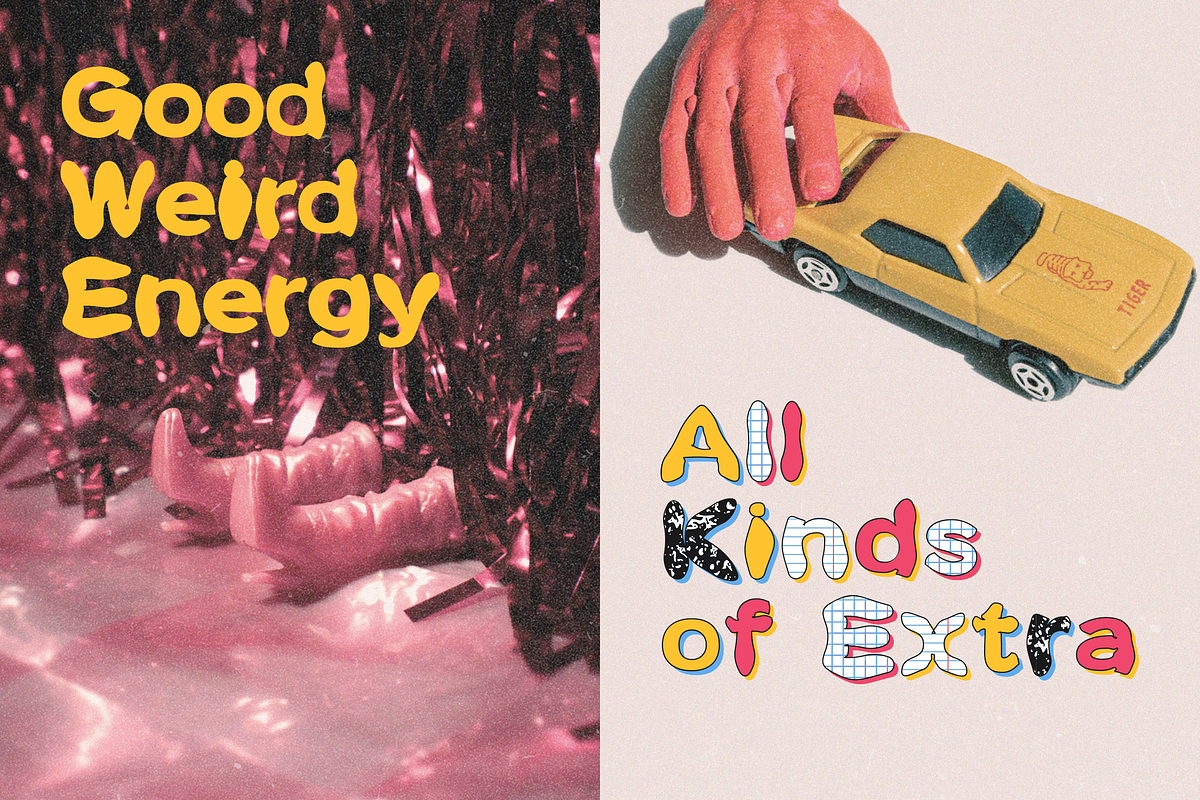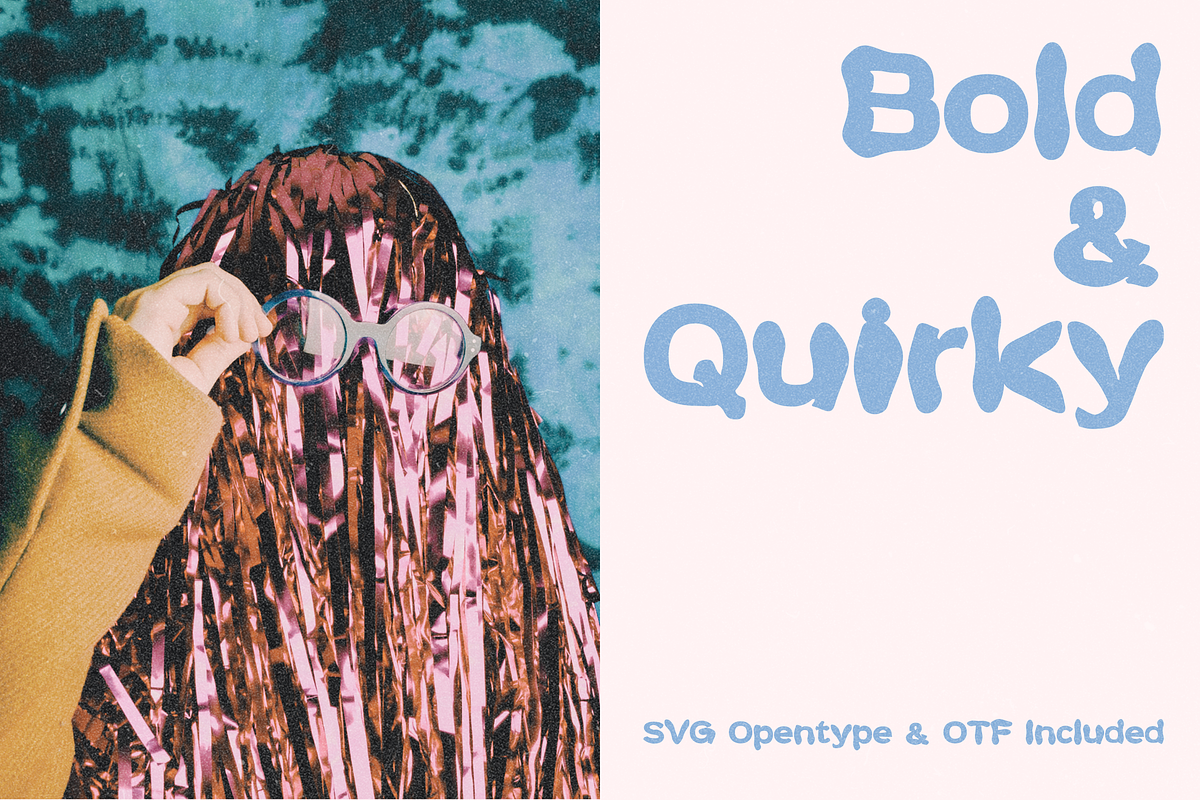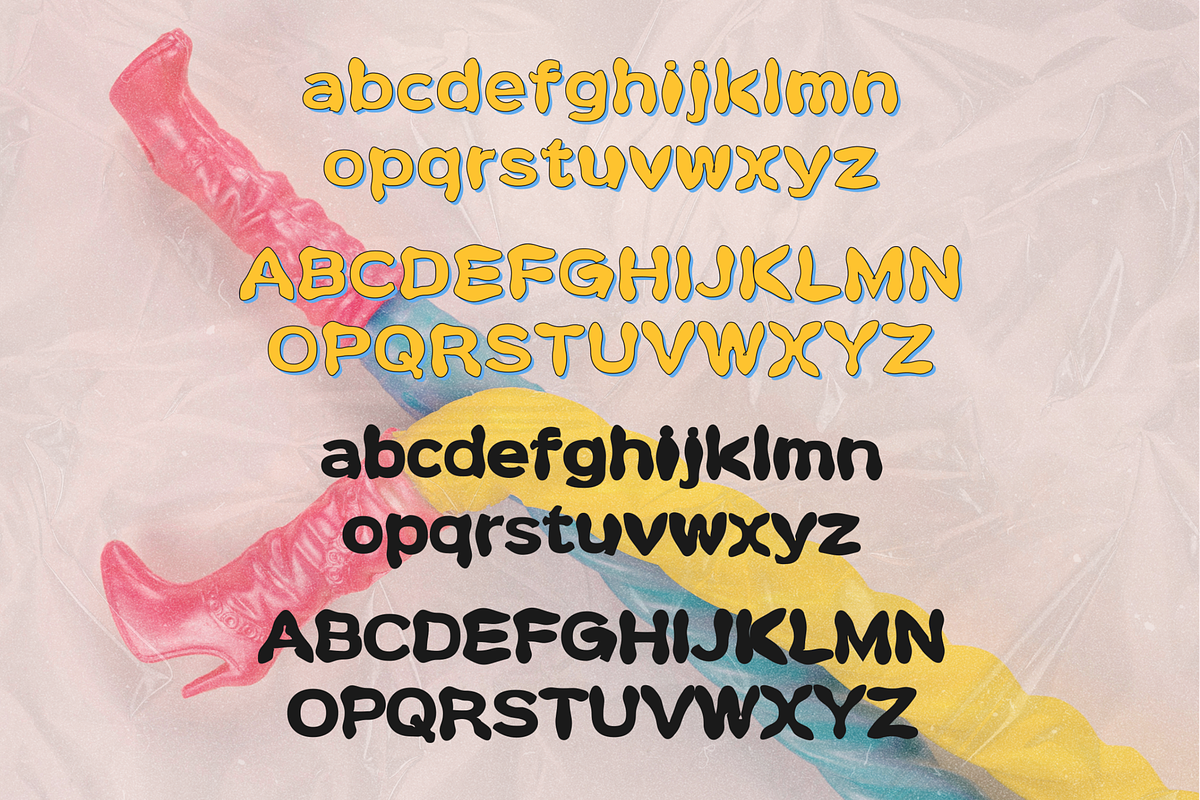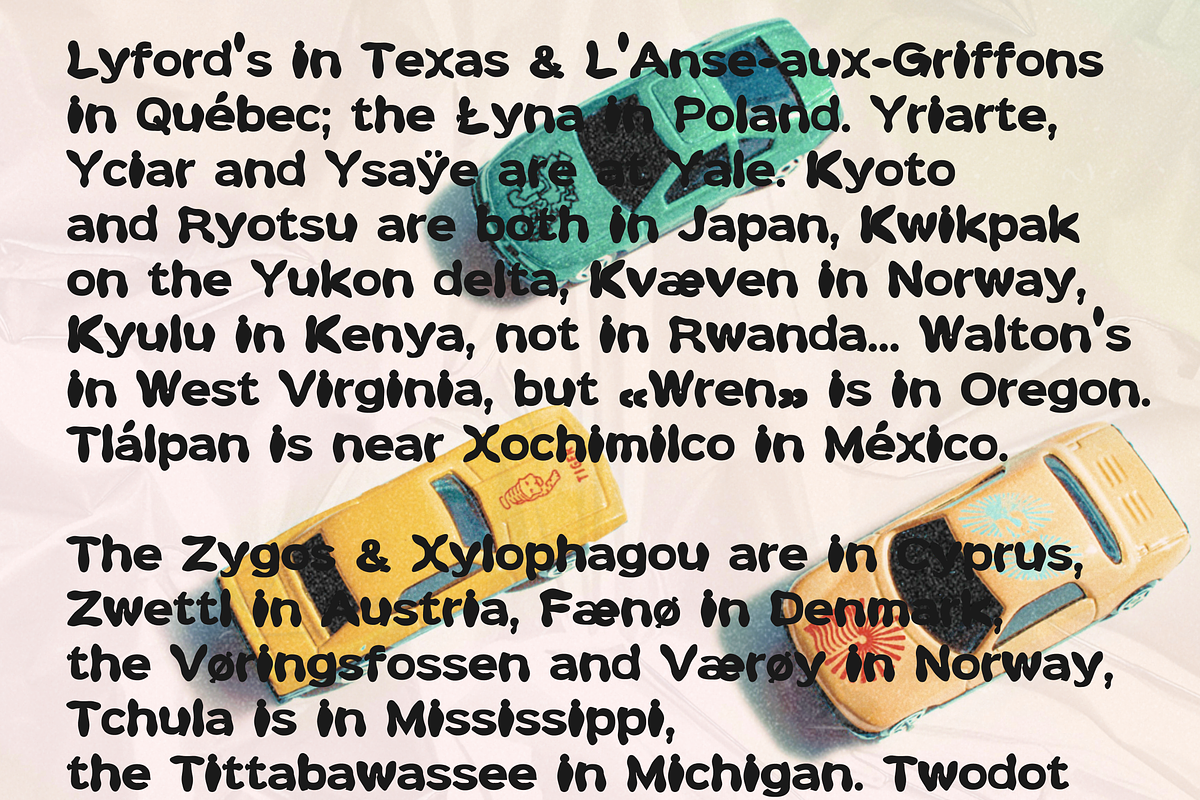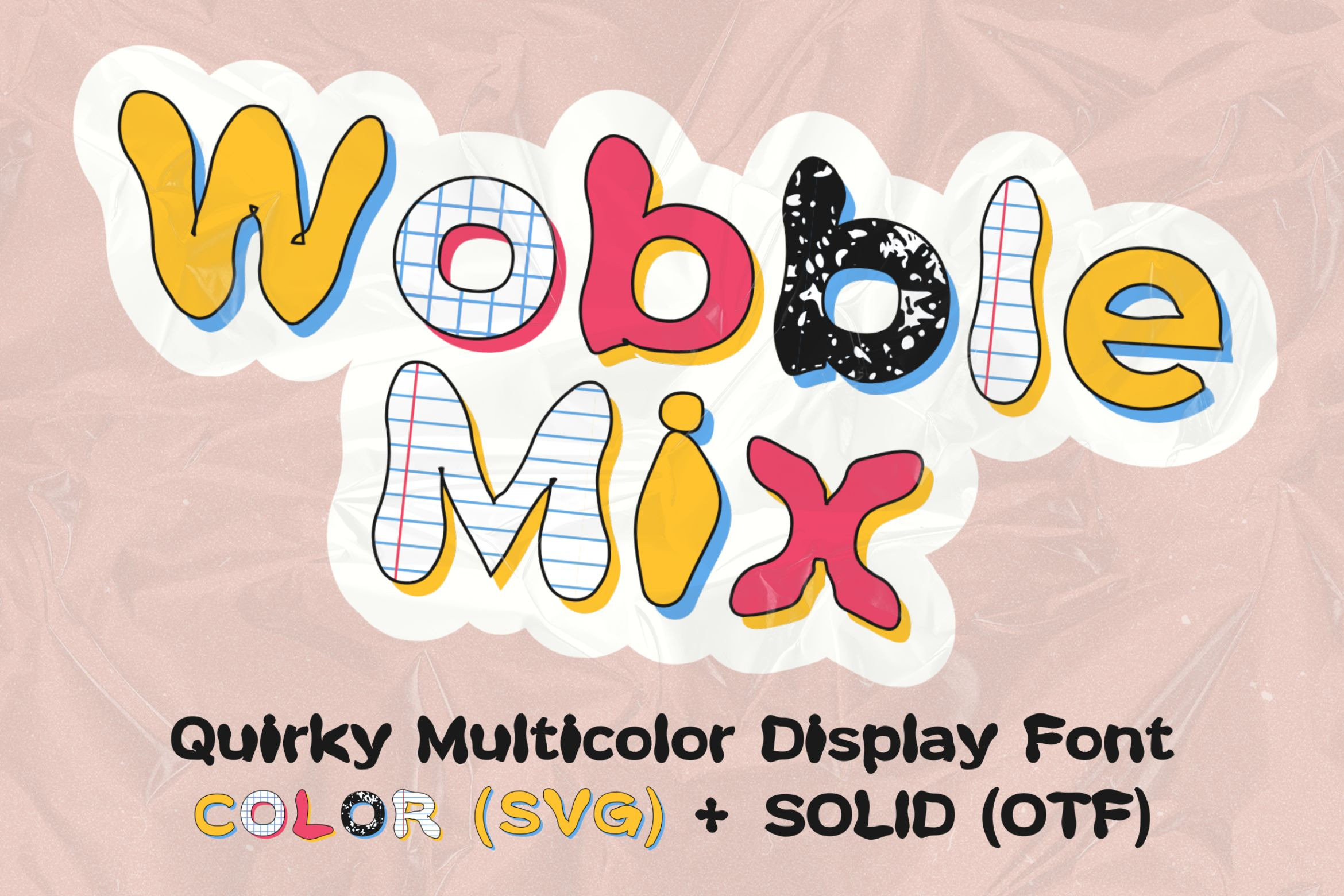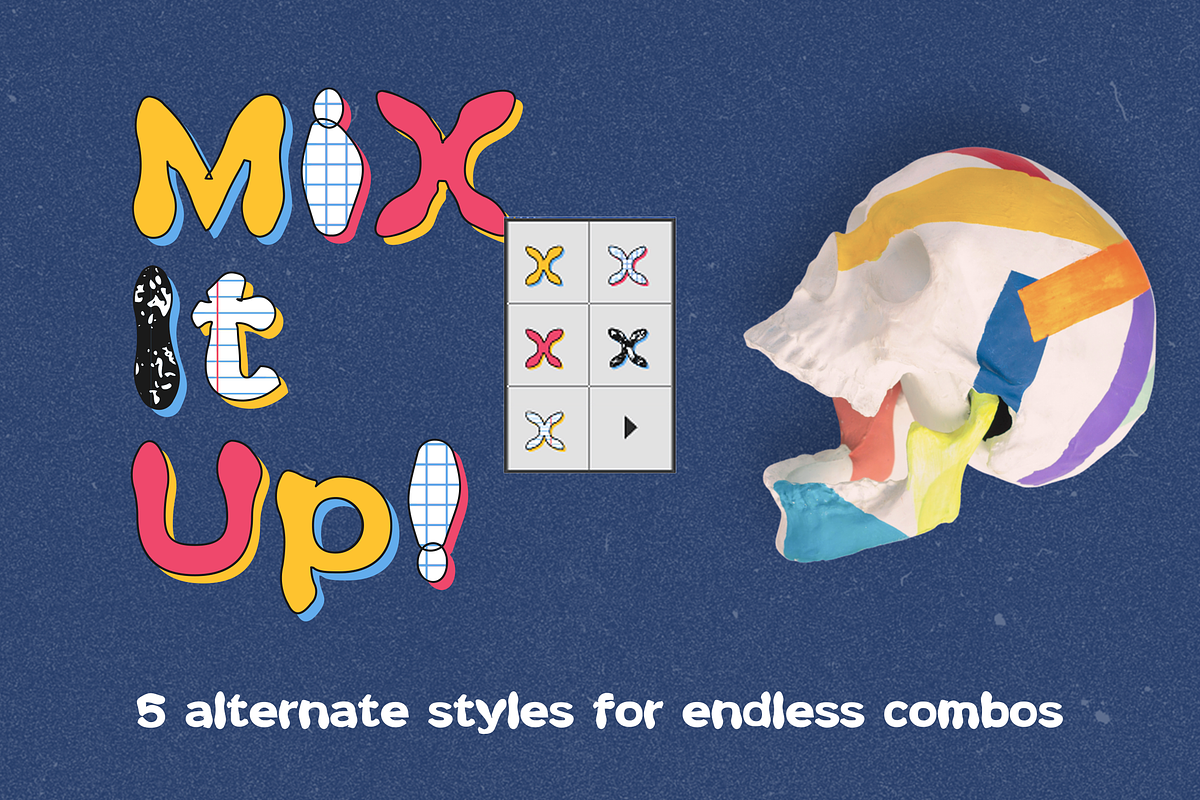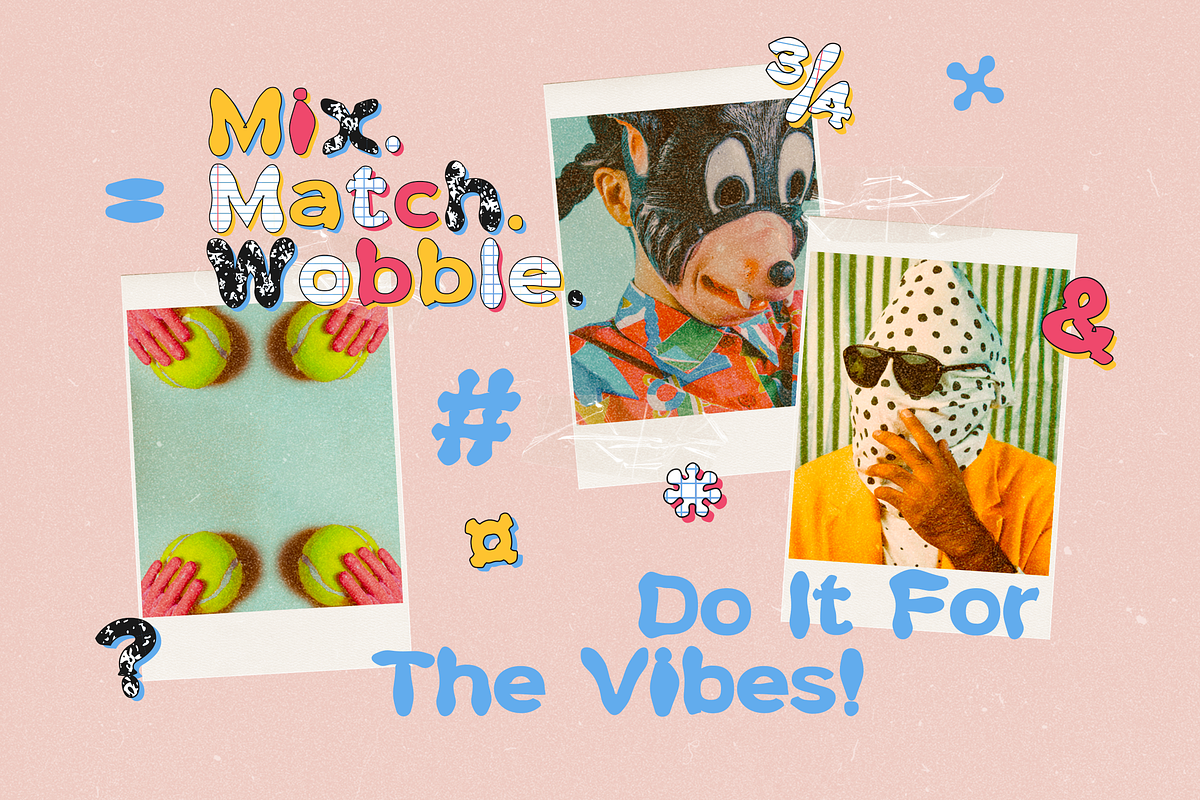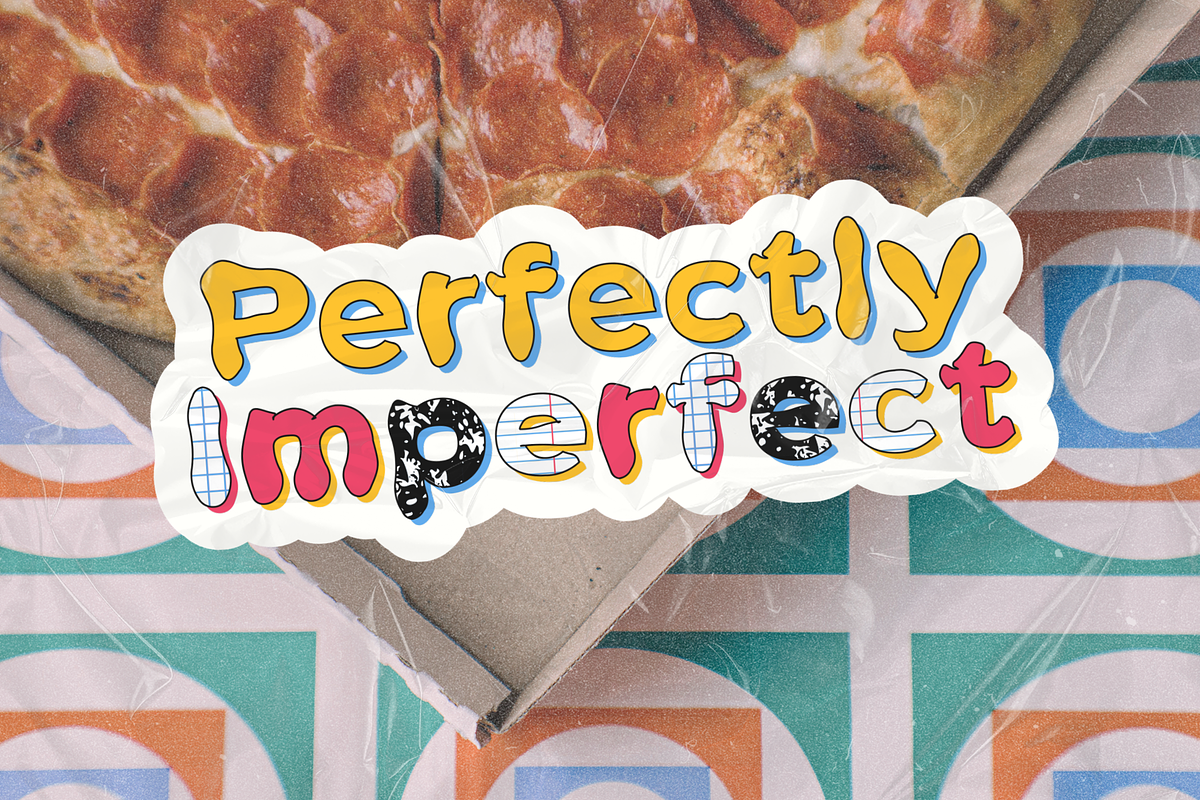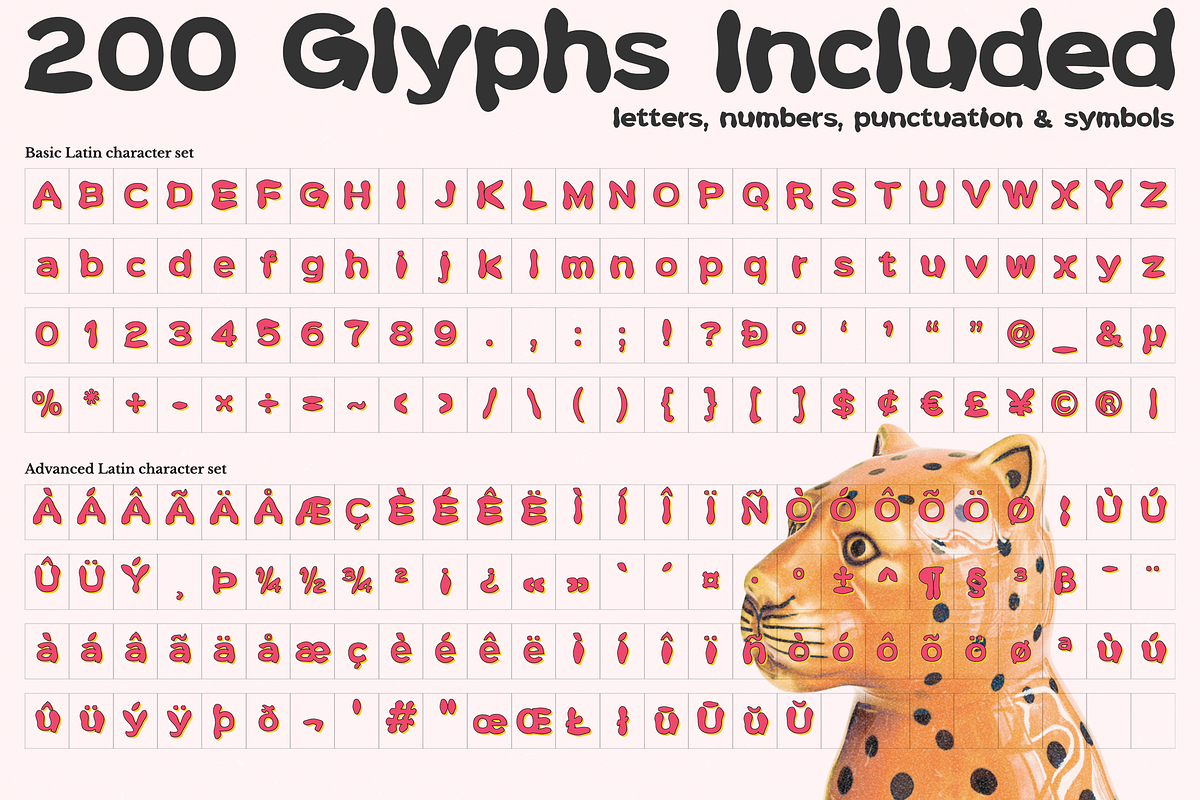
Wobble Mix - Quirky Color Font
Say hello to Wobble Mix — a quirky multicolor display font that brings fun, playfulness, and a touch of chaos into your designs! Perfect for branding, social media, posters, packaging, and anything that needs bold personality.
Wobble Mix includes 2 typefaces:
- 5 multicolor alternates (SVG)
- Latin Extended support (multilingual, covering 20+ languages)
- Bold display ideal for posters, social media, branding, and quirky merch